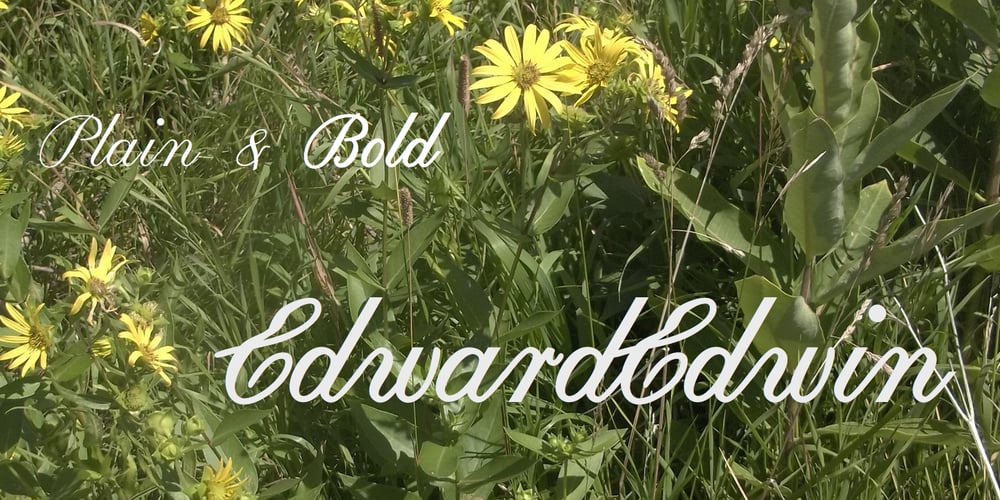
Edward Edwin
Edward Edwin font
Edward Edwin Font Family was designed by Robert Schenk and published by Ingrimayne Type. Edward Edwin contains 2 styles and family package options. EdwardEdwin a is simple but elegant rendition of a formal, calligraphic script.